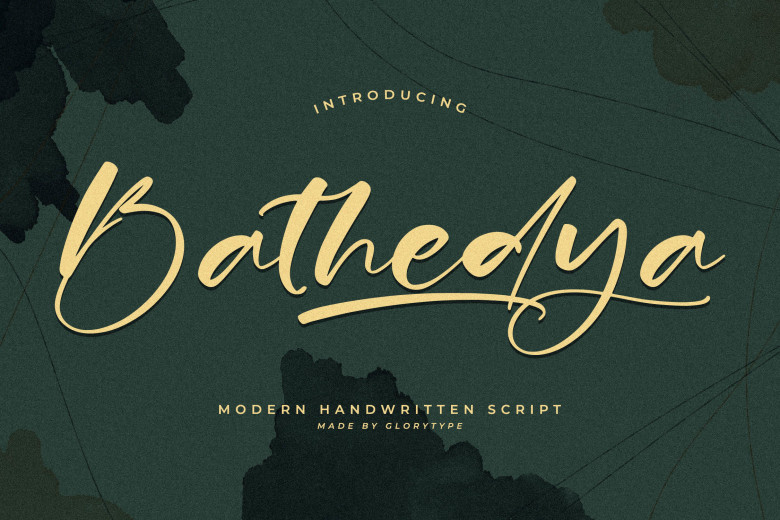
Bathedya Font
Bathedya is a was designed by Glorytype Studio, which is their latest product Modern Handwritten Script and Perfect font symbol for your any projects. This font is perfect for: logos, branding projects, homeware designs, product packaging- mugs, quotes, posters, shopping bags, t-shirts, book covers, name card, invitation cards, greeting cards, label, photography, watermark, special events, and all your other lovely projects that need a beautiful script taste.
Bathedya Handwritten Script Font